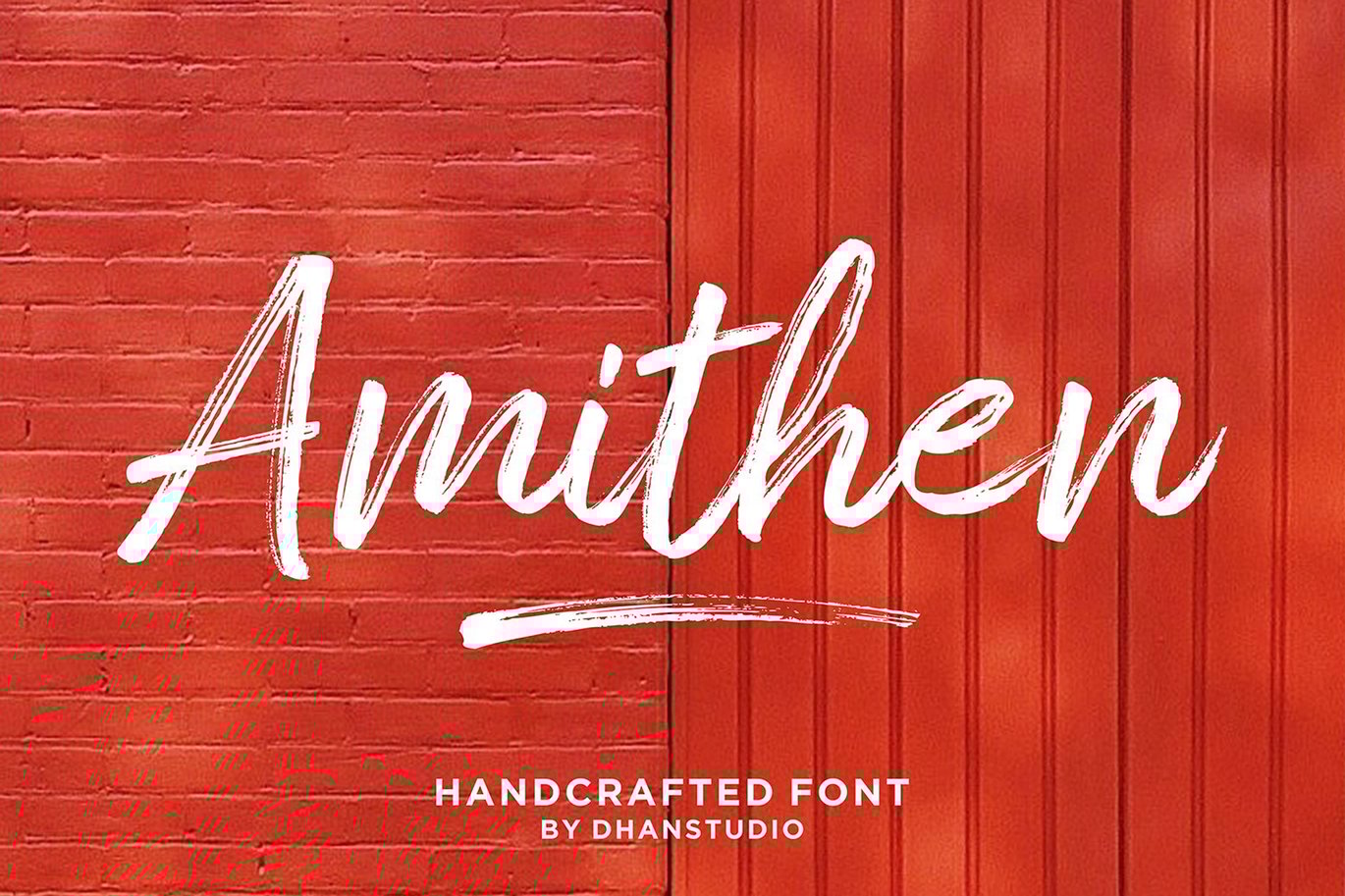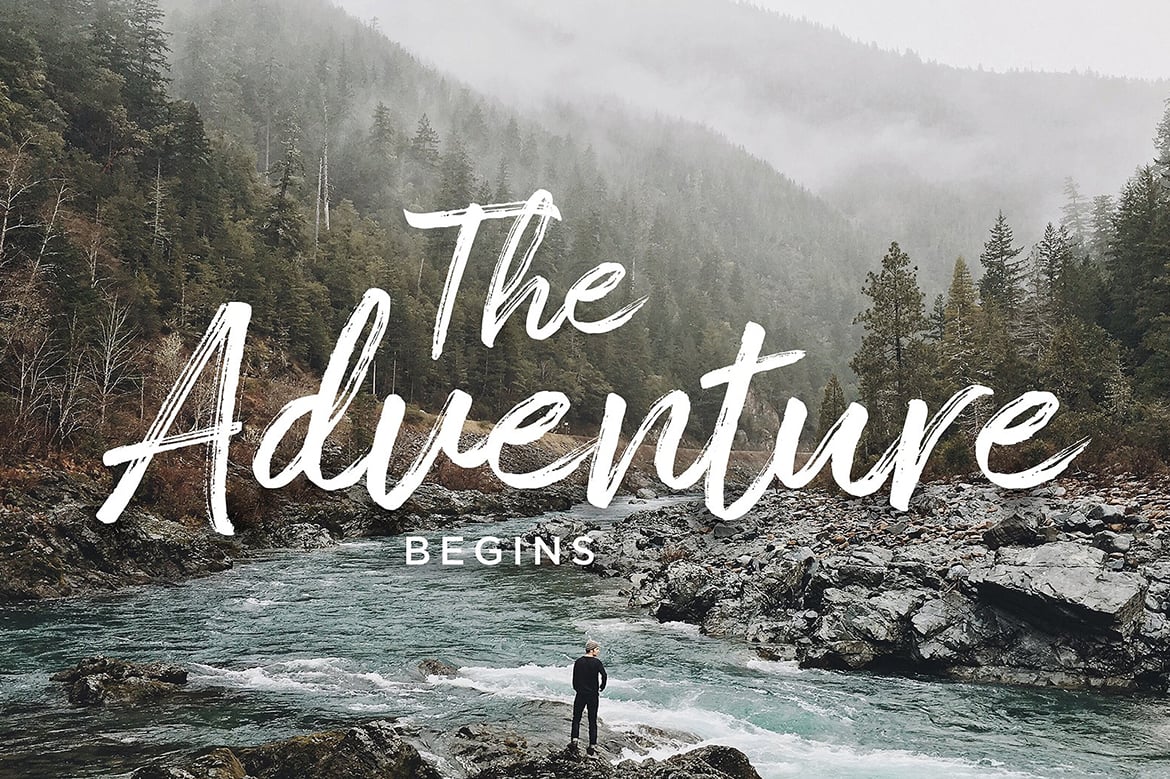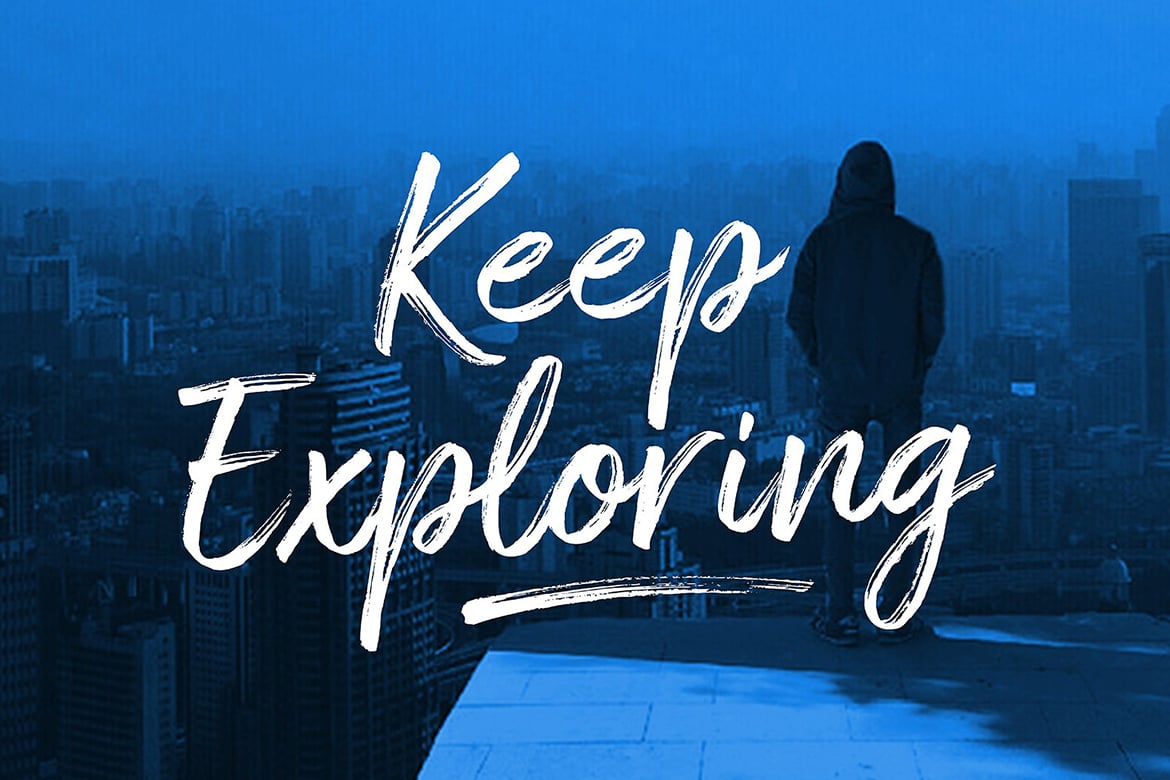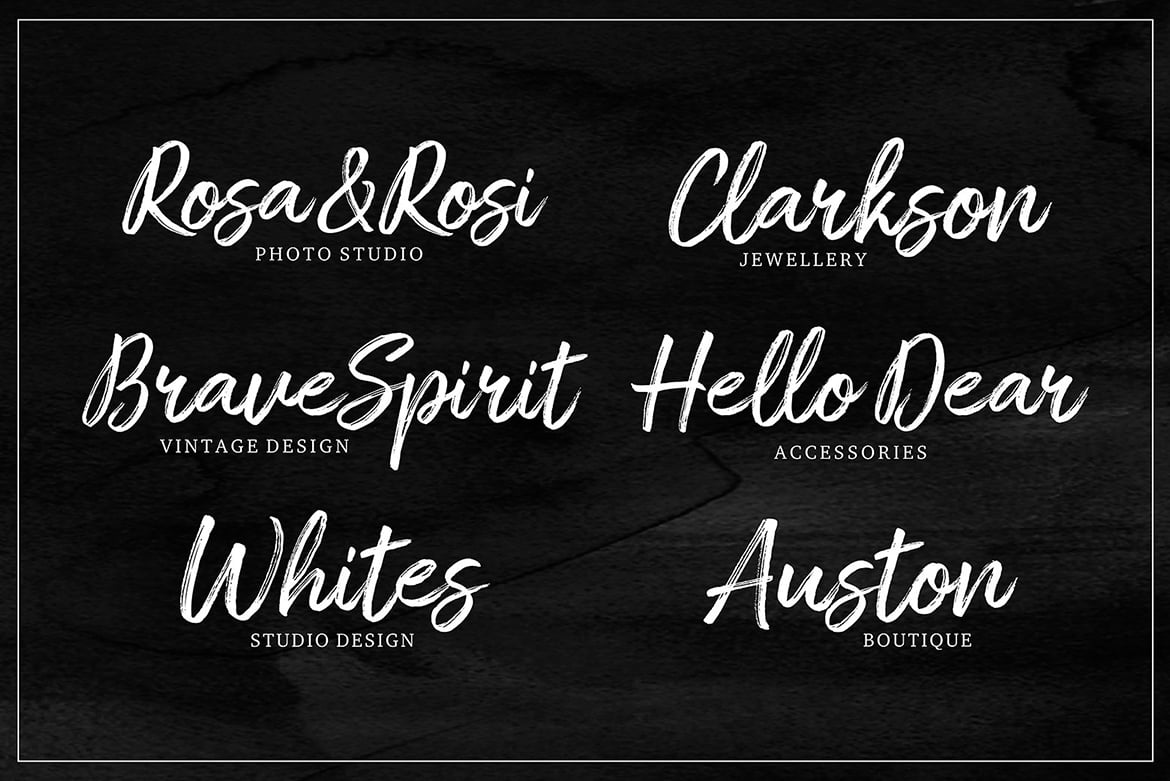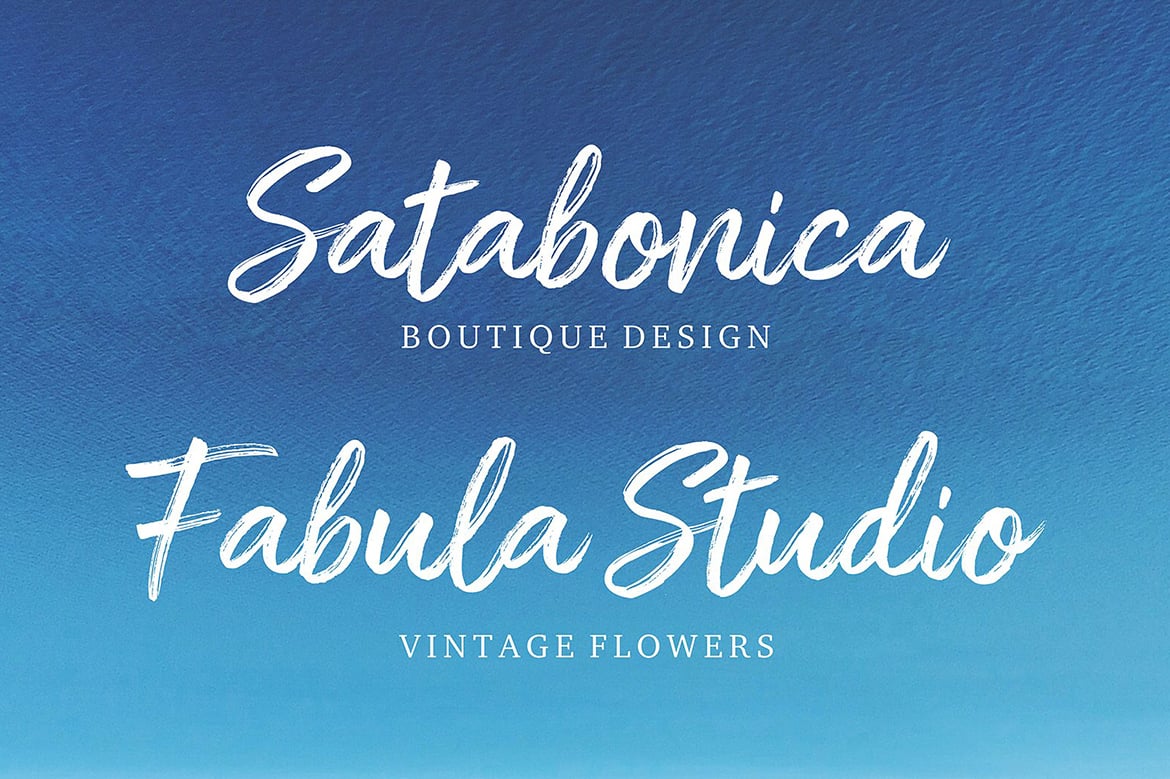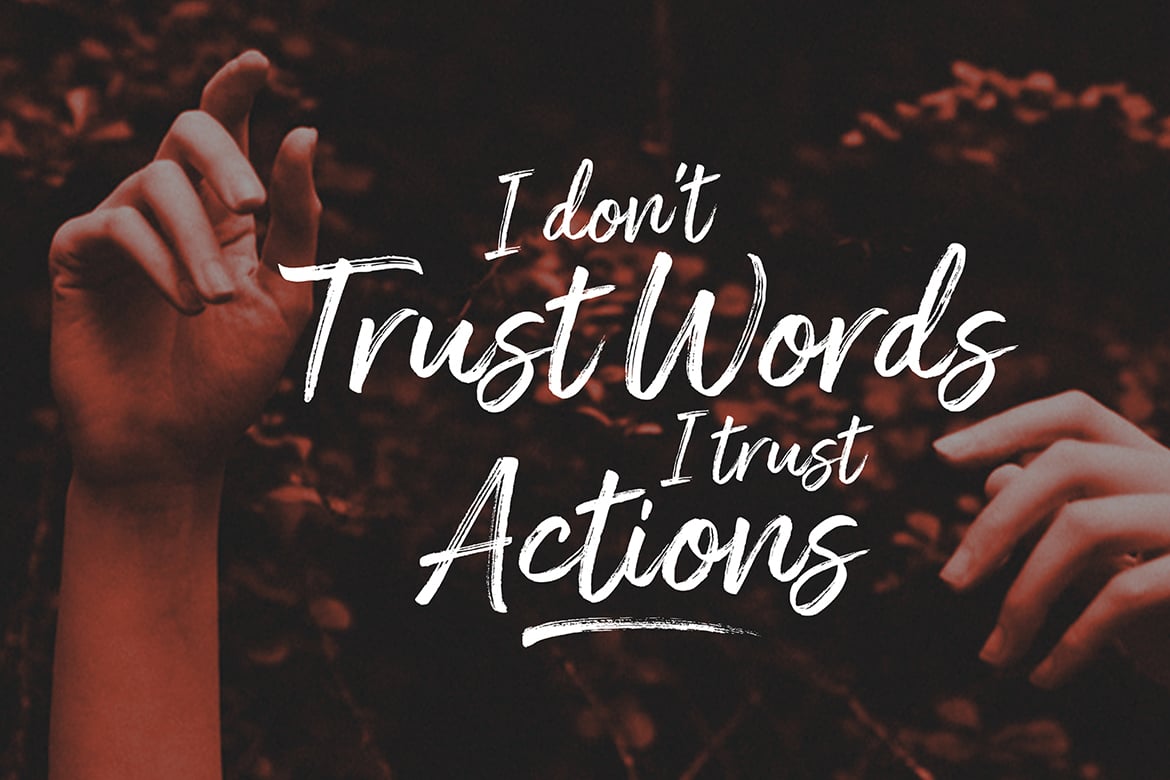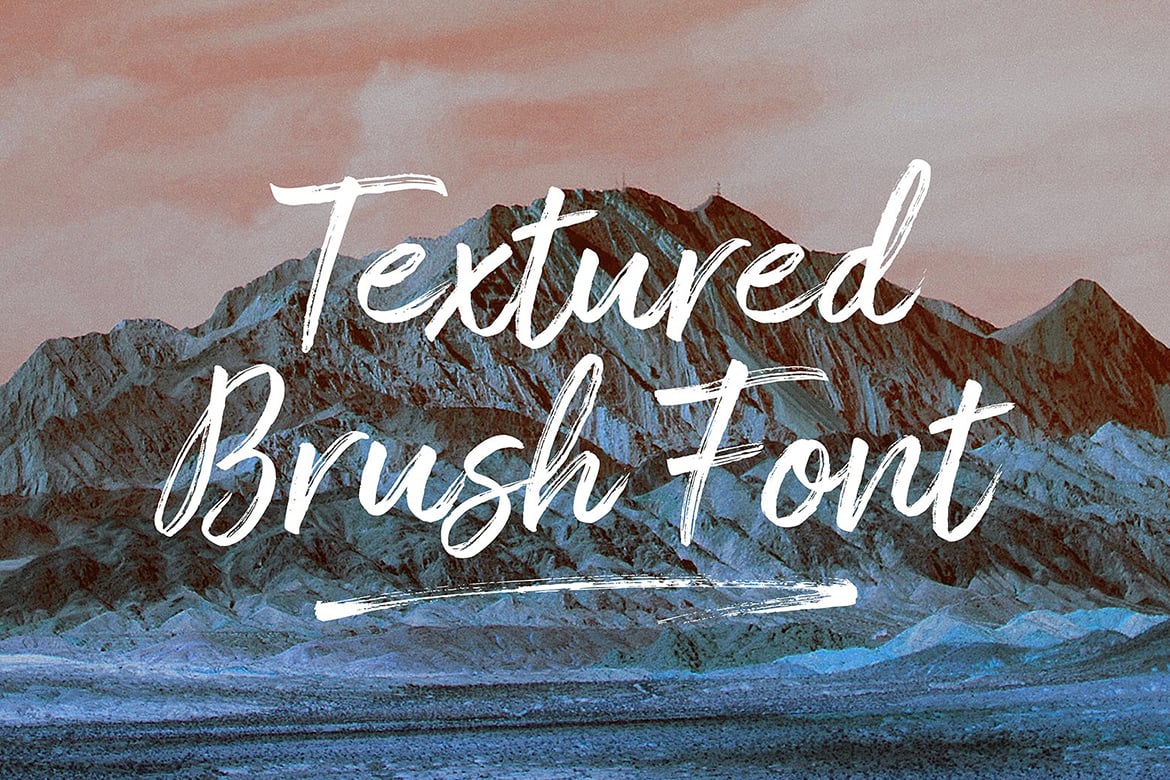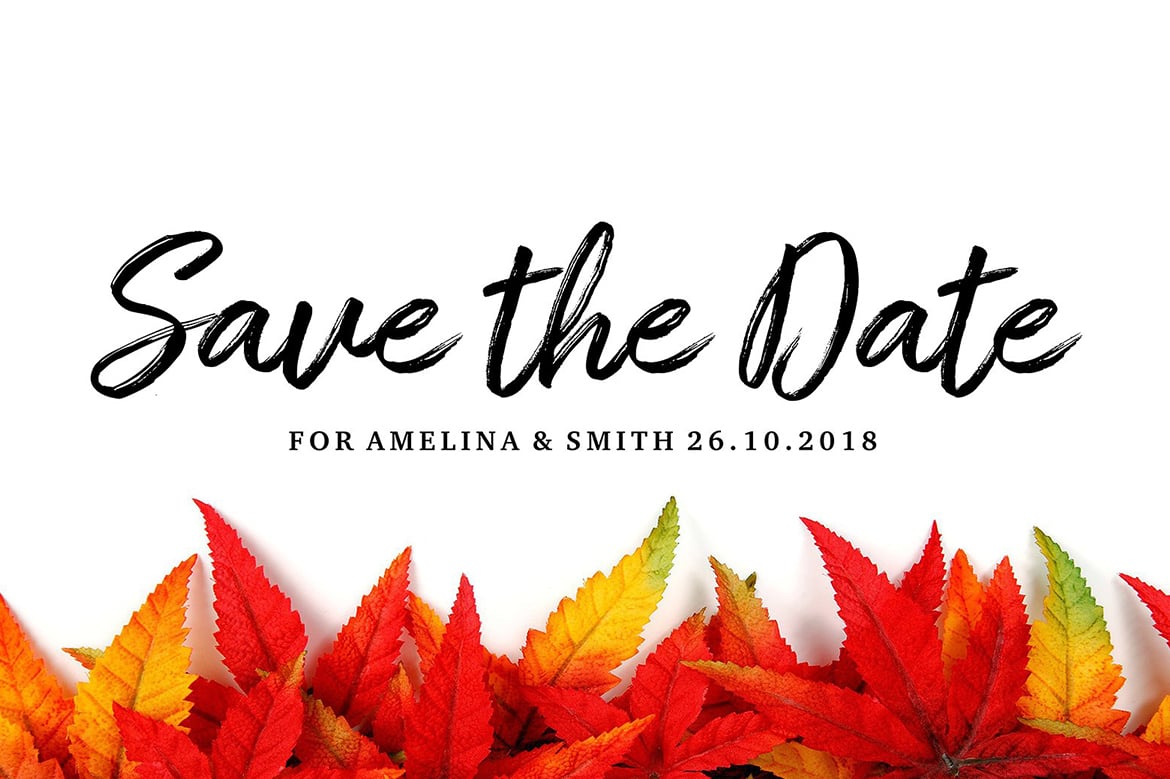
Amithen Brush Font
Amithen is textured brush font, contemporary approach to design, handmade natural with an irregular baseline. Suitable for use in title design. Such as apparel, invitations, books tittle, stationery design, quotes, branding, logos, greeting card, t-shirt, packaging design, poster and more. Amithen includes a complete set of uppercase and lowercase letters, as well as multi-language support, numbers, punctuation, ligatures.